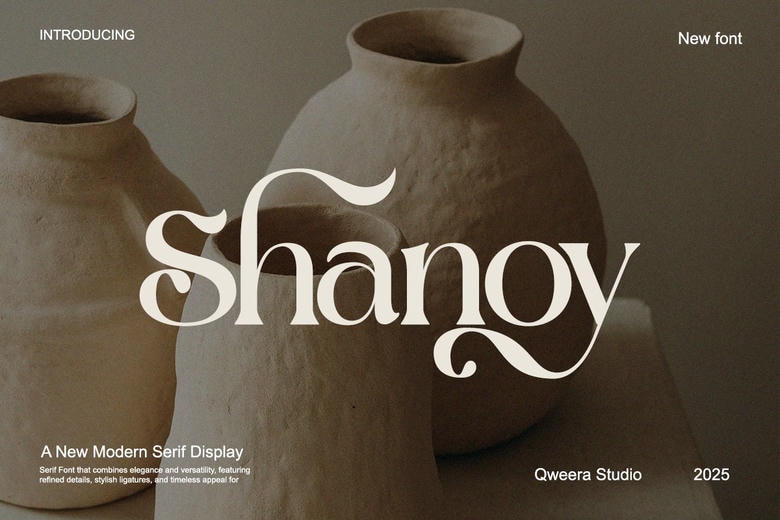
Shanoy Font
Shanoy is one of the most exquisitely attractive modern serif display font, it is a well blended modern display font of classical charm and a heavy handed modern touch. Its unique characteristics are its artistic, dramatic swashes and ligatures which form flowing expressive bonds between letters and which make your headlines memorable immediately.
Ideal to high-end branding of beauty and cosmetic items, the invitations to the luxury events, the titles of the fashion magazines, or the posters of the artistic works, and any brand which will be concerned with the sophistication, the understated detailing, and the confident and eternal appeal. It will turn plain text into a carefully edited visual presentation.
Shanoy adds a warm and elegant touch to any creative work as she is designed to create branding, editorial layouts, packaging, and lifestyle visuals. This serif font is ideal in print and digital applications, and it promises to deliver a sense of elegance, clarity and versatility.
Shanoy Serif Font